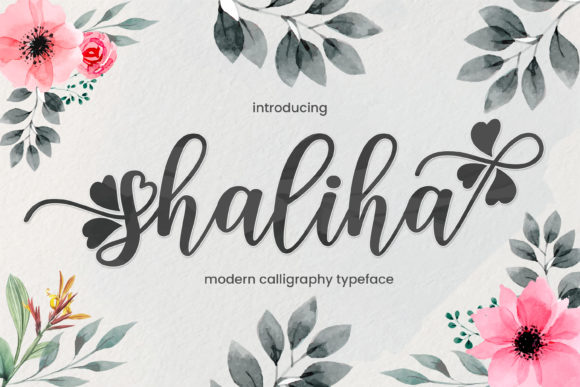
About Shaliha Script Font
Shaliha Script is a dainty and flowing handwritten font. Sweet and joyful, this font will be ideal for each of your creations. Shaliha Script is PUA encoded which means you can access all of the glyphs and swashes with ease!